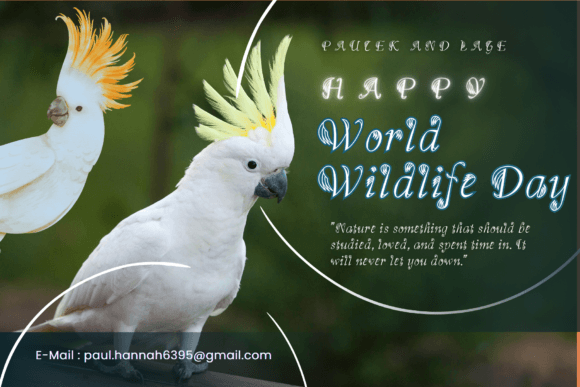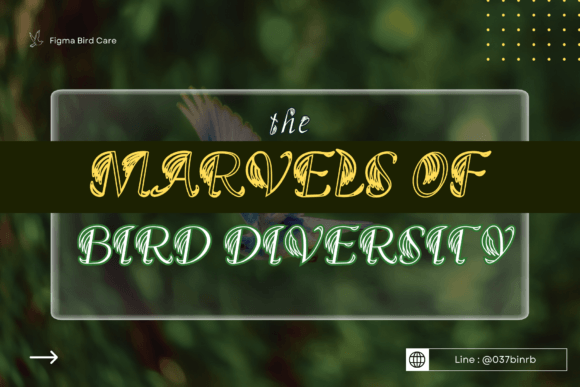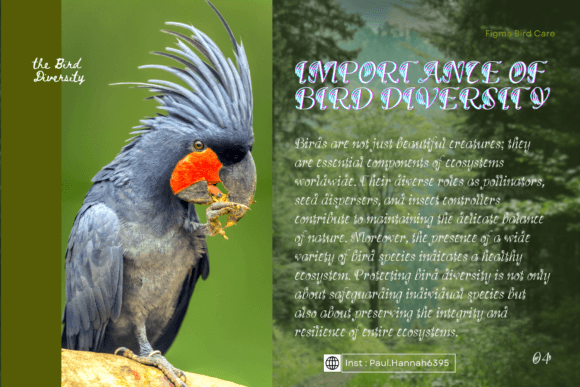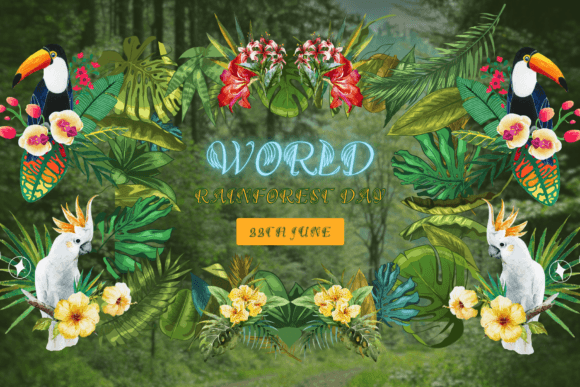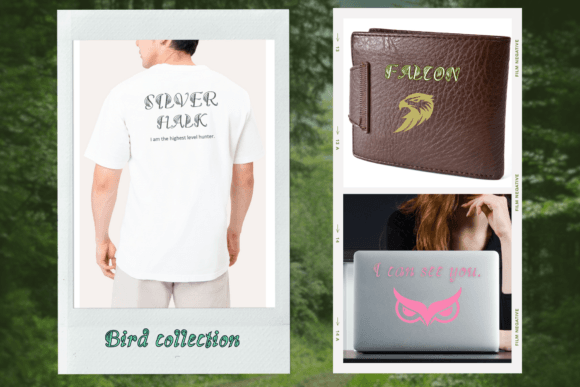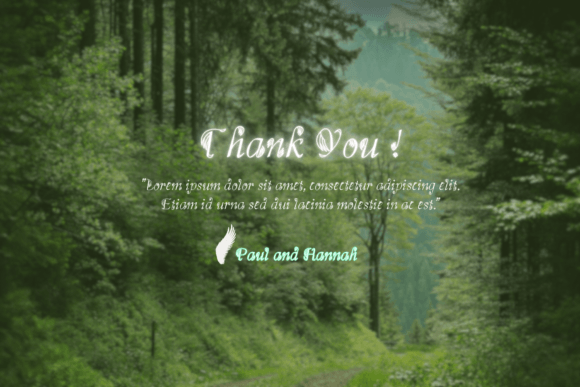
Cockatoo Hair Font: A Unique and Creative Typeface Inspired by Nature
In the world of typography, fonts are often designed to evoke emotions, convey messages, and add personality to creative projects. One such font that stands out from the rest is the Cockatoo Hair Font, a beautiful and unique typeface inspired by the stunning feathers on a cockatoo’s head or crest. In this article, we’ll dive into the world of Cockatoo Hair Font, exploring its characteristics, uses, and benefits for designers and crafters.
What is Cockatoo Hair Font?
Cockatoo Hair Font is part of a collection of fonts that represent the characteristics of animals and insects. This font is carefully crafted to capture the essence of the cockatoo’s distinctive crest, which is known for its elegance and charm. The font’s design combines the uniqueness of the cockatoo’s feathers with beautiful typography, making it an excellent choice for creative projects that require a touch of nature and whimsy.
Characteristics of Cockatoo Hair Font
Cockatoo Hair Font boasts several characteristics that make it a standout typeface. Some of its notable features include:
- Unique and elegant design: The font’s design is inspired by the cockatoo’s crest, which is known for its distinctive and elegant shape.
- Curvy and flowing lines: The font features curvy and flowing lines that give it a soft, organic feel.
- Highly legible: Despite its unique design, Cockatoo Hair Font is highly legible, making it suitable for use in a variety of creative projects.
- Versatile: The font can be used in different contexts, from digital designs to print materials.
Uses of Cockatoo Hair Font
Cockatoo Hair Font is a versatile typeface that can be used in a variety of creative projects, including:
- Graphic design: The font can be used in graphic design projects, such as logos, branding materials, and social media graphics.
- Crafting: Crafters can use Cockatoo Hair Font to add a personal touch to their projects, such as handmade cards, scrapbooking, and DIY crafts.
- Digital art: The font can be used in digital art projects, such as illustrations, animations, and digital paintings.
- Typography: Cockatoo Hair Font can be used in typography projects, such as quotes, posters, and flyers.
Benefits of Using Cockatoo Hair Font
Using Cockatoo Hair Font in your creative projects offers several benefits, including:
- Unique and creative look: The font’s unique design adds a touch of creativity and personality to your projects.
- Emotional connection: The font’s inspiration from nature creates an emotional connection with your audience.
- Versatility: The font can be used in different contexts and projects.
- Ease of use: The font is highly legible and easy to use, making it suitable for designers and crafters of all levels.
Cockatoo Hair Font is a beautiful and unique typeface that offers a creative and elegant solution for designers and crafters. Its inspiration from the cockatoo’s crest makes it a standout font that can add a touch of nature and whimsy to your projects. With its curvy and flowing lines, high legibility, and versatility, Cockatoo Hair Font is an excellent choice for a variety of creative projects. Whether you’re a designer, crafter, or typography enthusiast, Cockatoo Hair Font is definitely worth exploring.